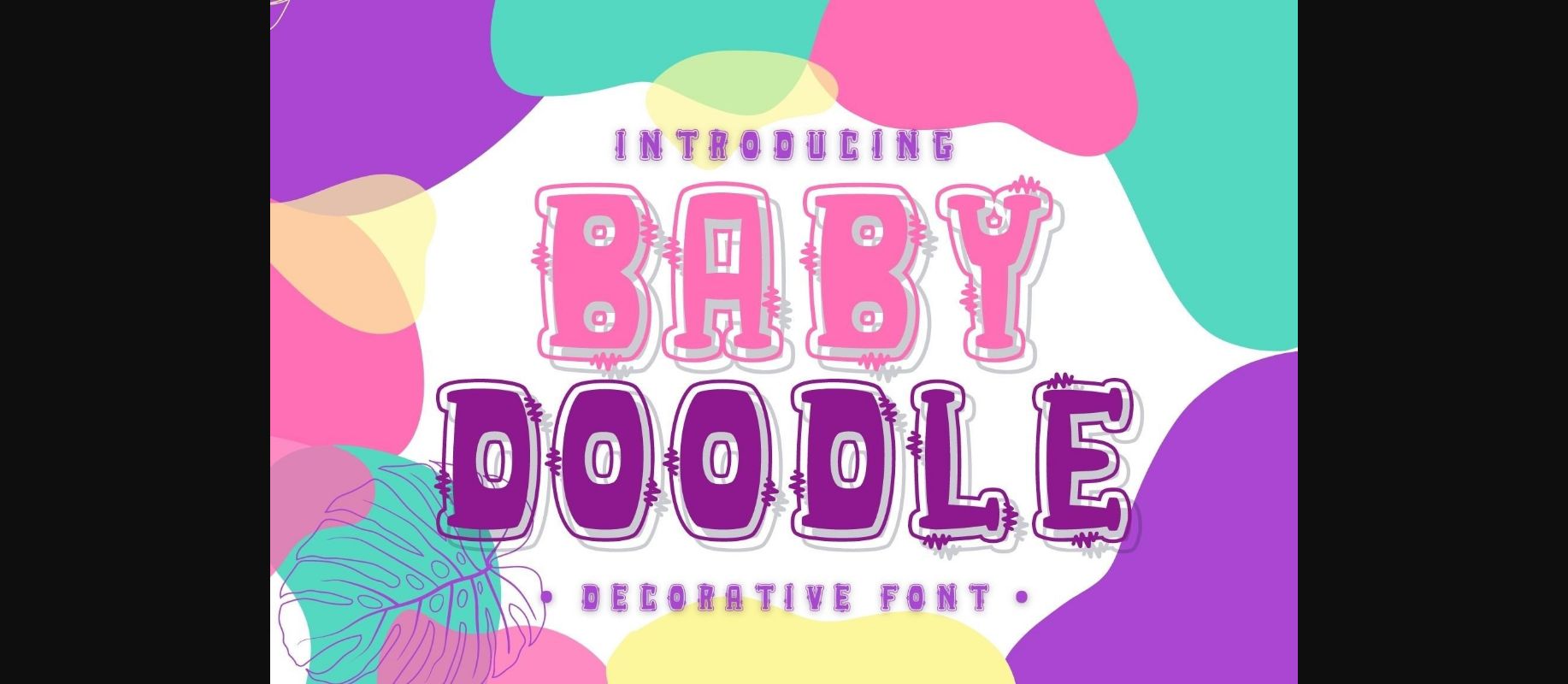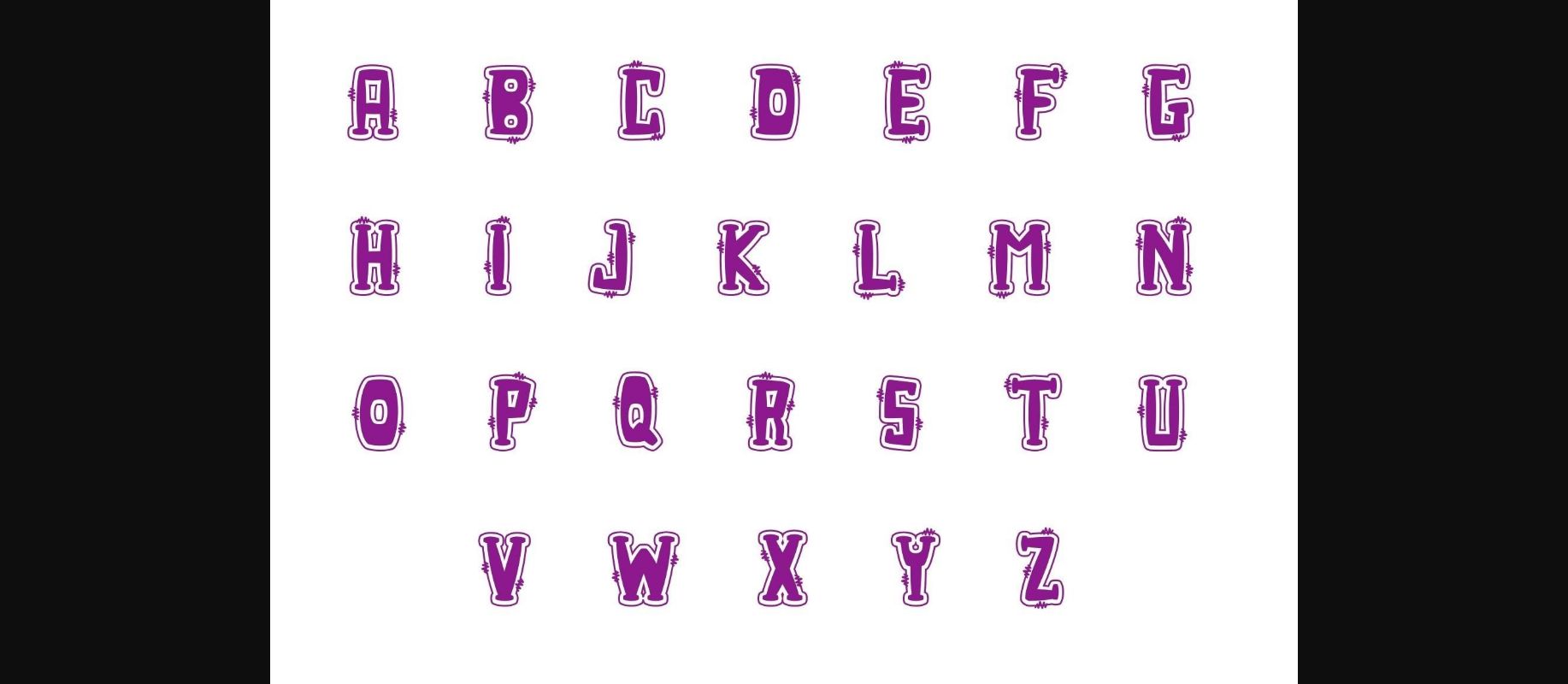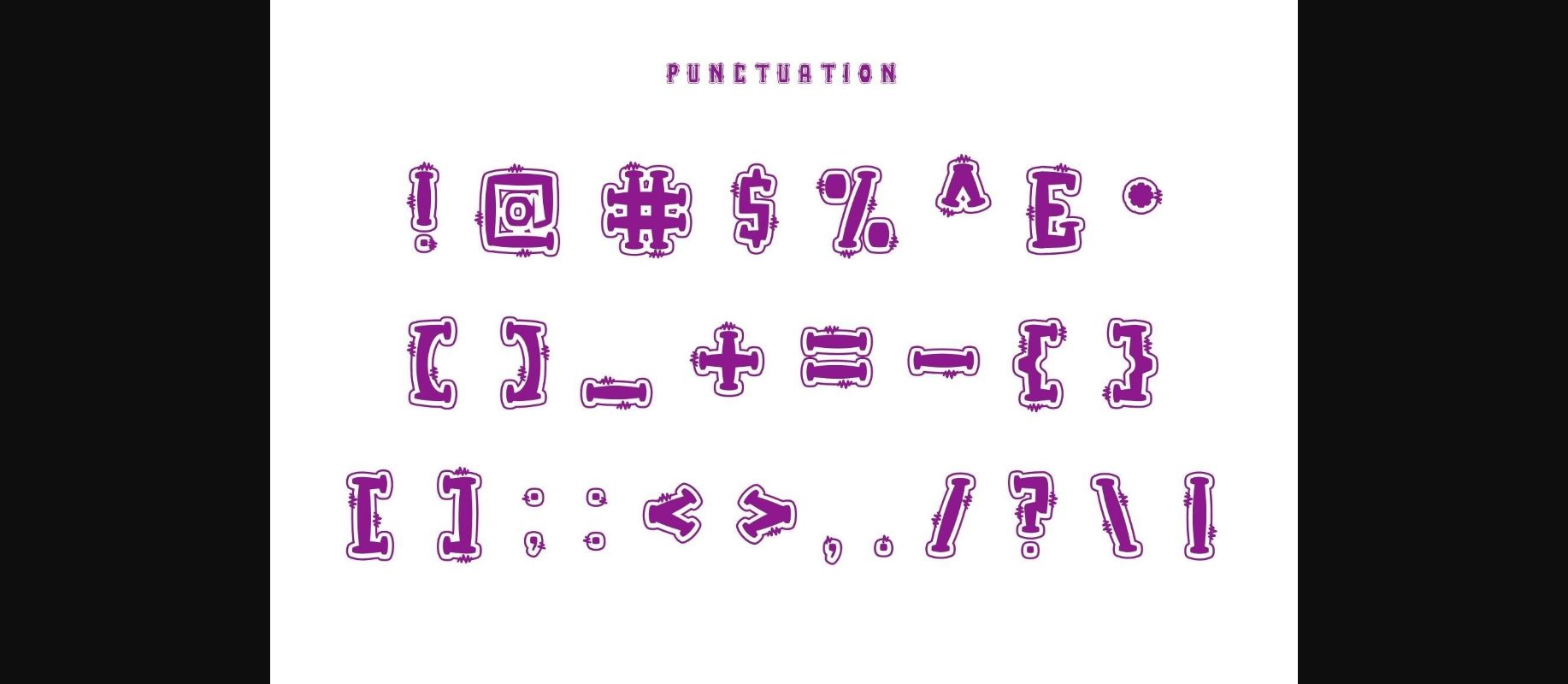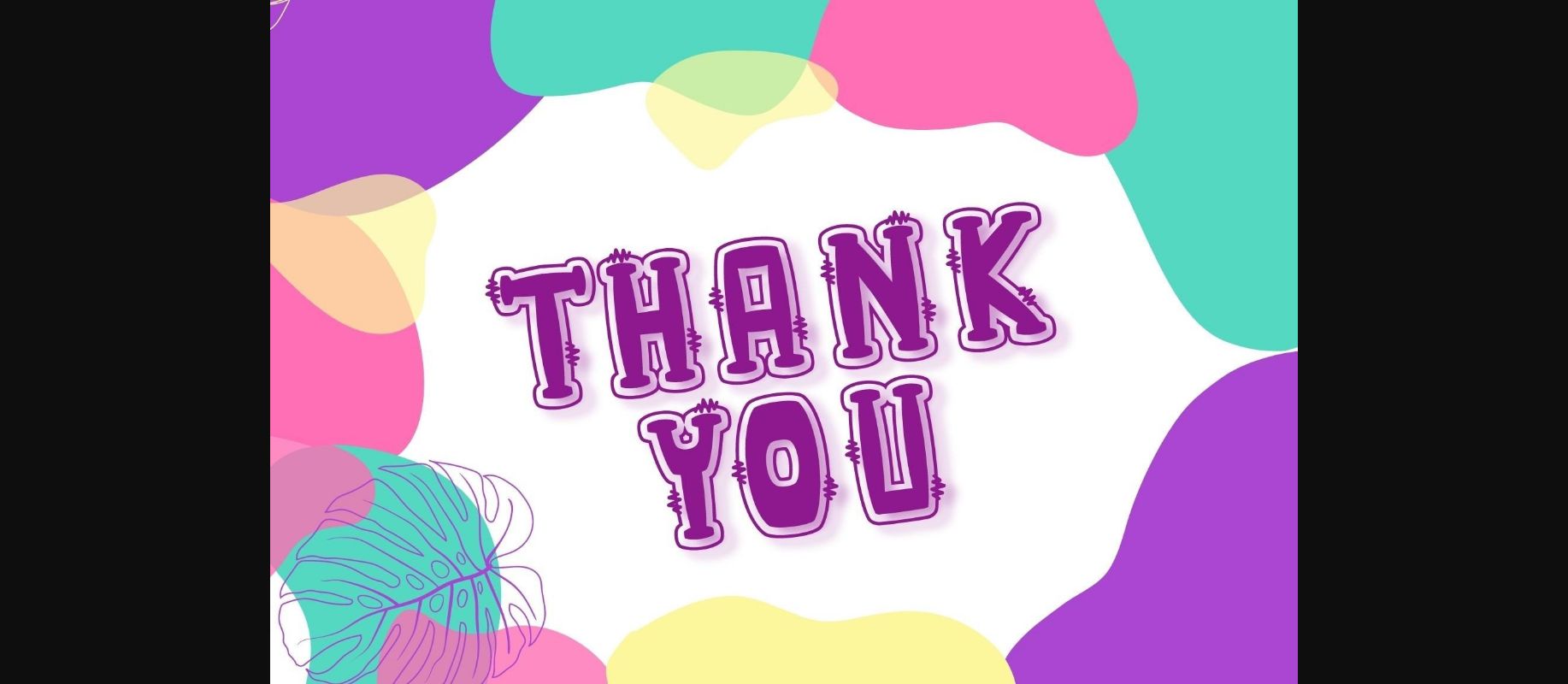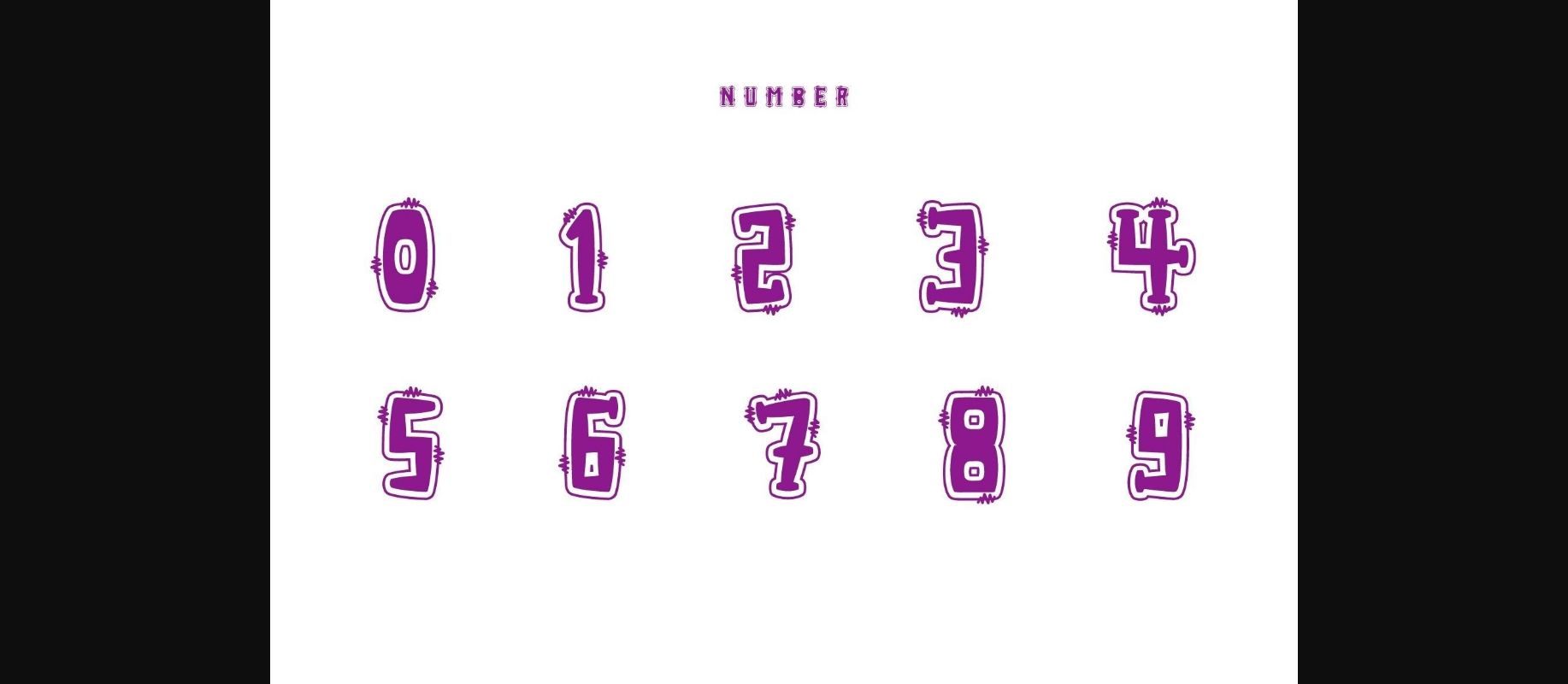
Baby Doodle Font
About Baby Doodle Font
Baby Doodle is a fun decorative font. It embodies playfulness and authenticity and is the perfect choice for all your favorite projects, or even for blog posts, logos, branding, ads, invitations, greeting cards, planners, photo albums, decorations, and much more. Add it to any of your designs, and enjoy the results!